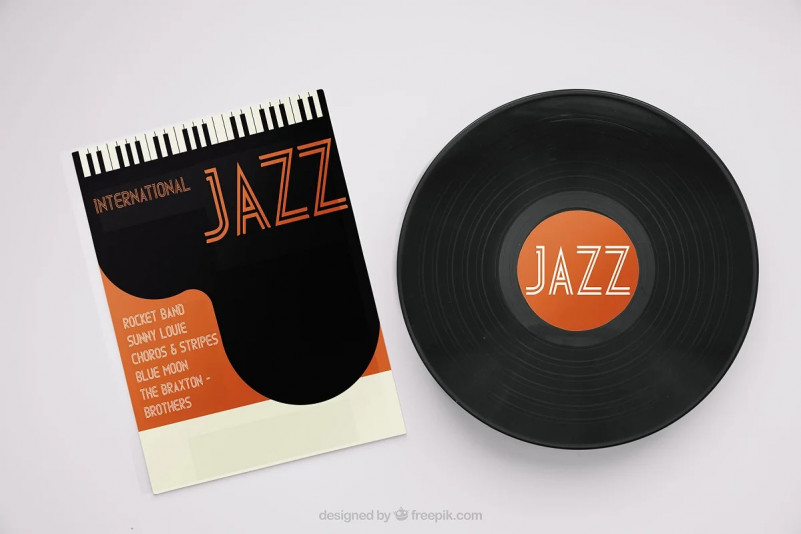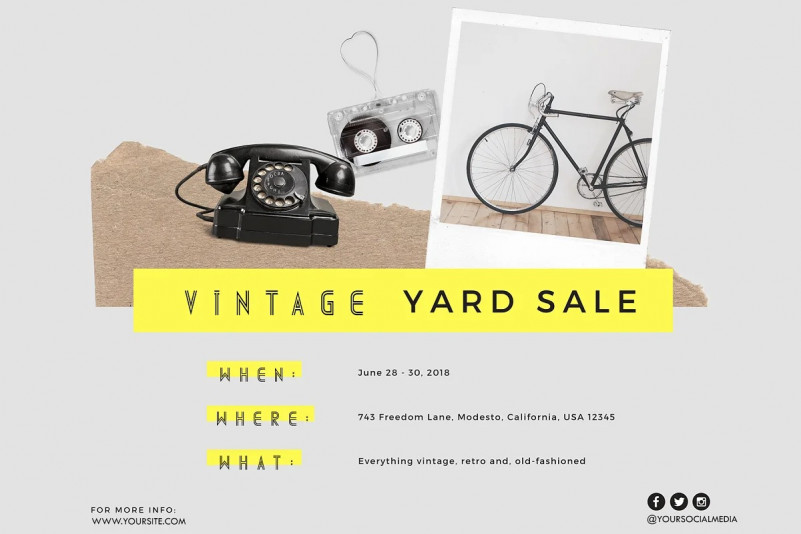
Zerico Font
Zerico Display Font is a unique font inspired by ancient writing styled in a modern and futuristic style. Perfect for posters, packaging designs, title text, body text, logos and more. This font is also my product in this shop. If you have any questions or requests or anything please contact me. Thank you.